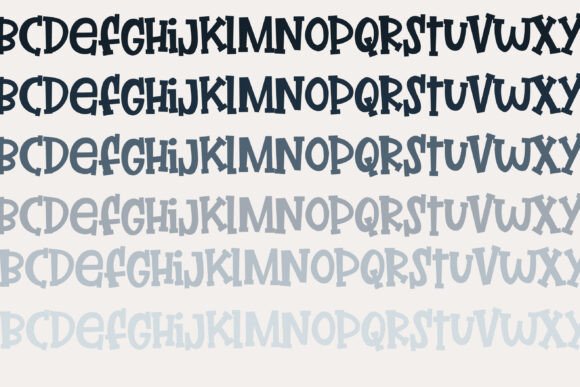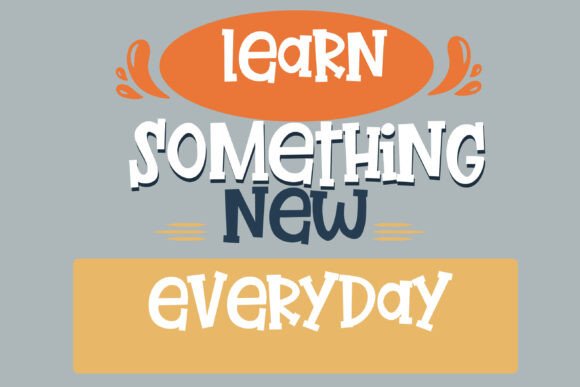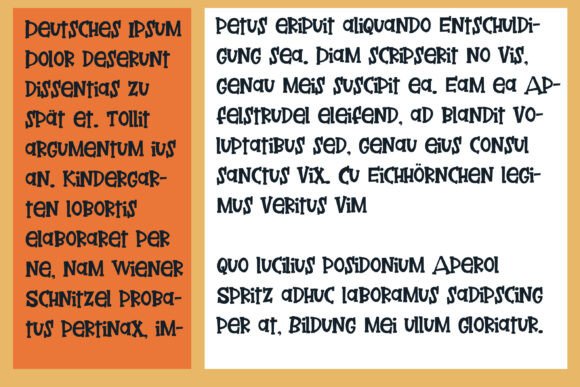
Introduction to Marshion Font
Have you ever found yourself rummaging through a box of old letters or cards, only to stumble upon a beautiful handwritten message that sparks a wave of nostalgia and creativity? For designers, this feeling is what makes the Marshion Font so special. This hand-crafted font is a true treasure, with its whimsical print and hand-crafted slab serifs that transport us back to a bygone era.
Key Features of Marshion Font
- High-quality, professional font suitable for creative projects and design resources.
- Designed with a focus on readability, making it perfect for body text and headings in creative projects.
- Unique characteristics include its modern, elegant design and extensive language support, making it a versatile design resource.
Honest Review: Marshion Font
One of the things that works well for the Marshion Font is its high quality and versatility. It’s perfect for use in creative projects that require a modern and sleek look. The font’s transparent background also makes it easy to use in various design scenarios.
Here are some of the features that I like about the Marshion Font:
- Modern and sleek design
- High quality and clear typography
- May not be suitable for projects that require a more traditional or classic look
- Limited character set compared to other fonts
Overall, I’m impressed with the Marshion Font. It’s a great resource for designers who need a modern and high-quality font for their creative projects.
The Marshion Font is a high-quality, free design resource perfect for any creative project. With its unique style and transparent background, it adds an extra layer of sophistication to your designs.
Tips for Getting the Most Out of Marshion Font
Use the Marshion Font in combination with other design elements to create a cohesive look. Experiment with different font sizes, colors, and styles to find the perfect combination for your project.
The Marshion Font is perfect for use in business cards, brochures, posters, and other marketing materials. It’s also great for use in creative projects such as graphic novels, comics, and digital art.
Compared to Marshion Font, Great Vibes Font has a more refined, cursive style that’s better suited for formal or professional designs. While Marshion Font has a playful, handwritten feel, Great Vibes Font is more polished and sophisticated.